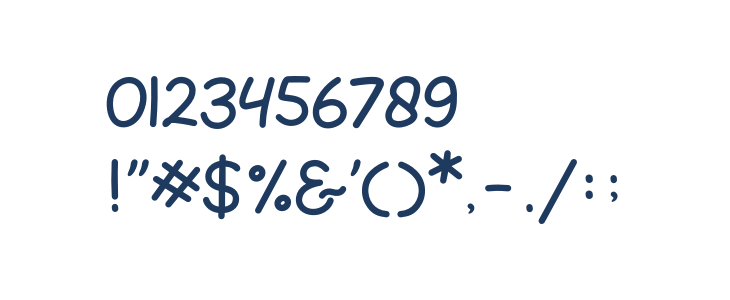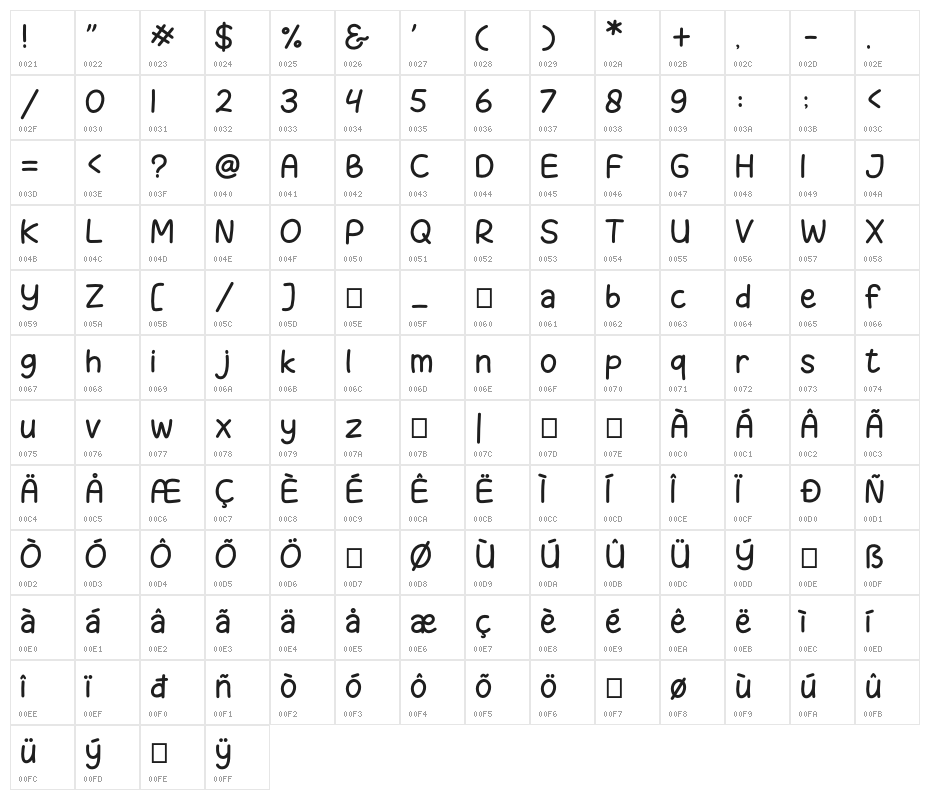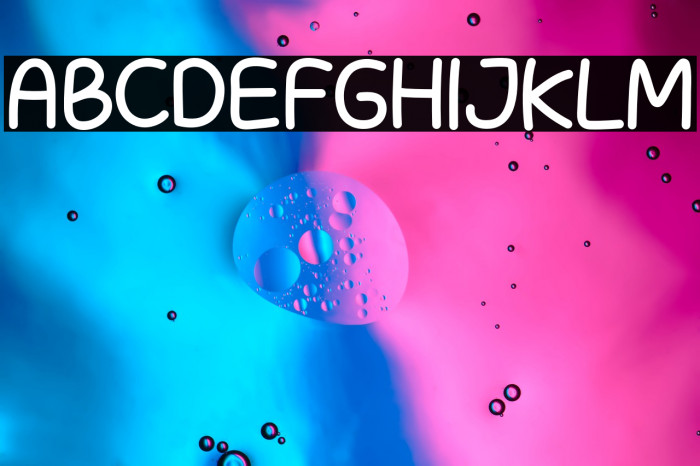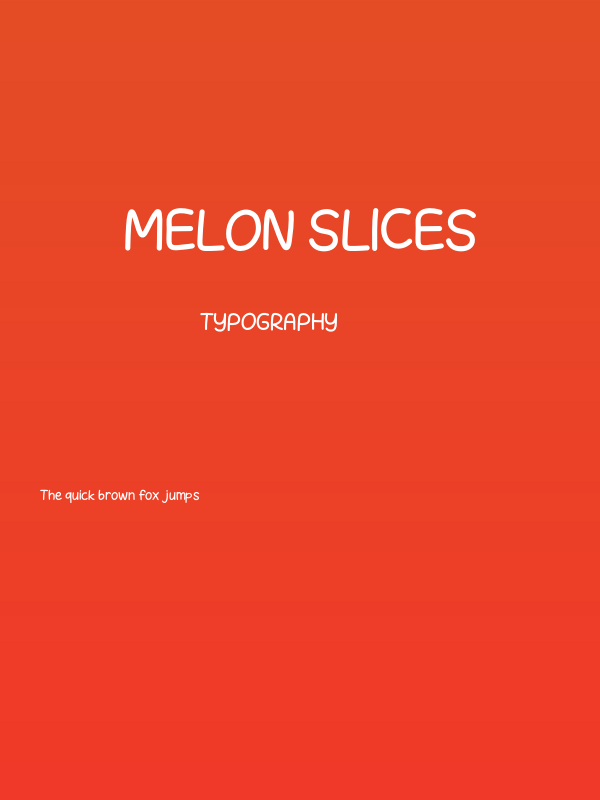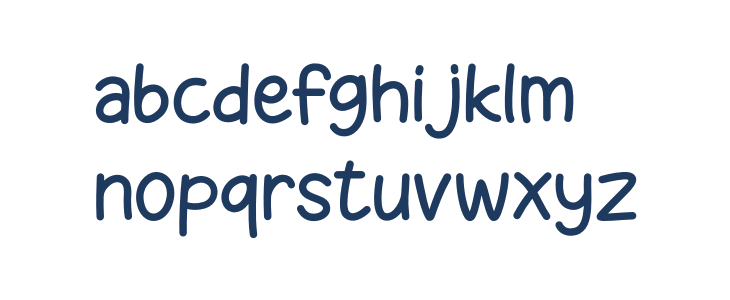
Melon Slices Font
Melon Slices Description
This playful and rounded font exudes a friendly and approachable vibe, characterized by its smooth, curvy lines and consistent stroke width. The letters are slightly wider than average, giving them a bold presence while maintaining a casual feel. The uppercase and lowercase characters are well-balanced, with a uniform height that ensures readability. The numerals and special characters follow the same design principles, making them cohesive with the alphabet. This font is perfect for projects that require a touch of whimsy and informality, such as children's books, playful branding, or casual invitations.
| Use Case | Headlines, Logos, Casual Text |
| Proposed Projects | Ideal for children's books, playful branding, casual invitations, and informal designs. |